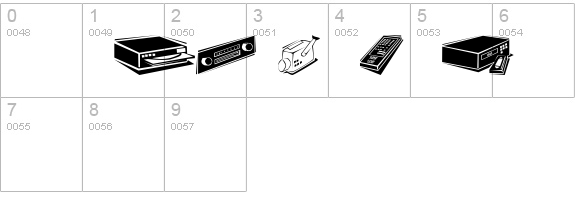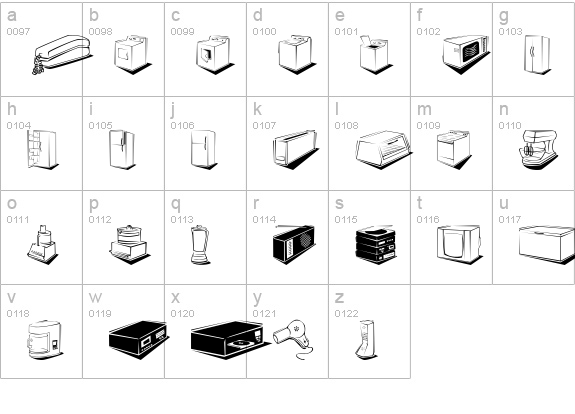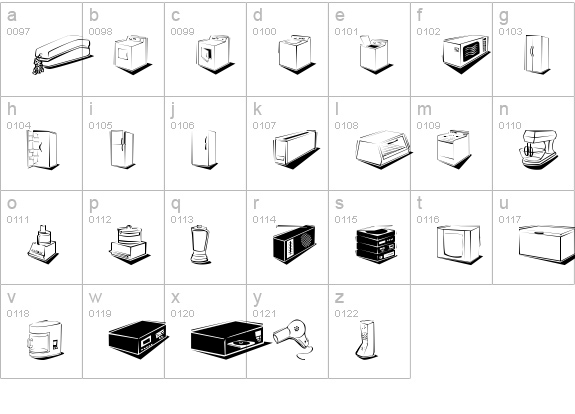
The Appliances font is a versatile and modern typeface that adds a touch of sophistication to any design project. With its sleek lines and stylish appearance, Appliances is the perfect choice for conveying a sense of elegance and professionalism. This font is available for free download at FontsMarket.com, making it easily accessible for all designers and creatives looking to elevate their work with a high-quality typeface. Whether you're working on a website, poster, logo, or any other design project, Appliances is sure to make a bold statement and leave a lasting impression on your audience. Download it today and take your designs to the next level with this exceptional font.